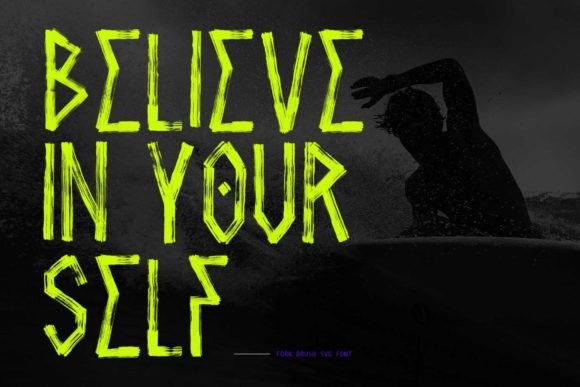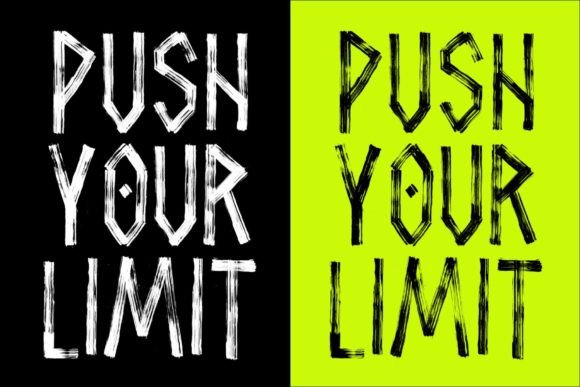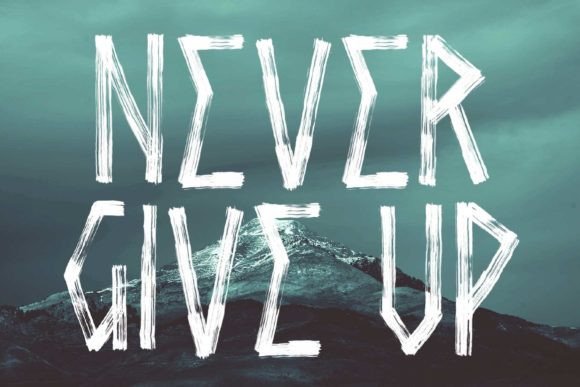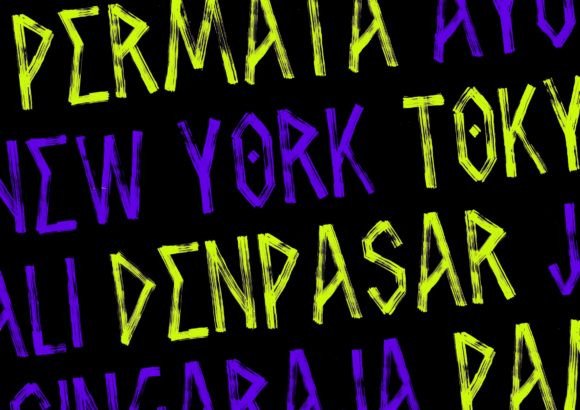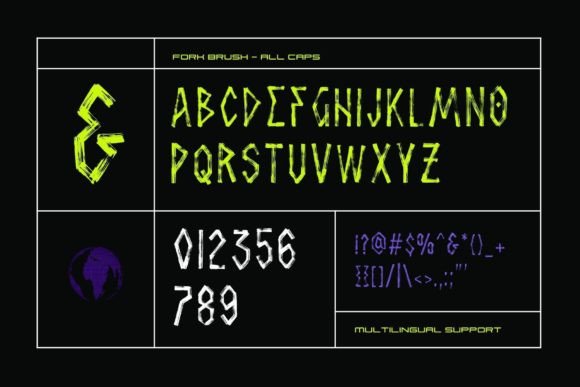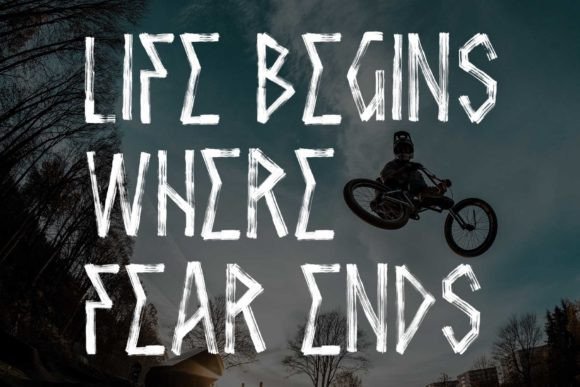
The Perfect Stroke: Unlocking the Power of Fork Brush Font
Have you ever stared at a blank canvas, feeling the weight of a creative deadline looming over you? The cursor blinks, taunting you with its silence. Suddenly, a spark ignites, and you envision the perfect typography – bold, modern, and eye-catching. That’s where Fork Brush Font comes in – a game-changing display font designed to elevate your designs and leave a lasting impression.
This versatile font is perfect for titles, logos, and typography, adding a touch of sophistication to your projects. Whether you’re working on a magazine, brochure, or packaging design, Fork Brush Font is sure to make your creations stand out. As a designer, you’ll appreciate the value it brings to your work, making it a valuable addition to your toolkit.
Fork Brush Font Key Features
- Size: The font family includes multiple weights, ranging from Light to Extra Bold, allowing for a wide range of typographic expressions.
- Unique Characteristics: Fork Brush Font features a unique blend of hand-drawn and digital elements, resulting in a distinctive, organic feel.
- Language Support: Fork Brush Font includes comprehensive language support, covering Latin, Cyrillic, and Greek scripts, among others.
- Stylistic Sets: The font includes a range of stylistic sets, allowing users to customize the font’s appearance and create unique typographic styles.
Fork Brush Font Review
Overall, I’d say the Fork Brush Font is an interesting and unique addition to any digital design project. ✨ Here are some things that really stand out to me:
- Quirky, hand-drawn feel that adds a touch of personality to any design
- Excellent for use in branding, logos, and other creative applications where a bit of whimsy is needed
- Includes a wide range of weights and styles to choose from, making it easy to customize to your needs
- Has a fun, playful vibe that’s perfect for projects like children’s books, advertisements, and more
Of course, like any font, Fork Brush Font isn’t perfect. ⚠️ Here are some potential drawbacks to keep in mind:
- May not be the best choice for formal or professional projects where a more traditional font is called for
- Can be a bit overwhelming or busy if used in large blocks of text
- Not all characters are perfectly formed, which can make it difficult to read in certain situations
Overall, I’d say the Fork Brush Font is a great choice for designers looking to add a bit of personality and whimsy to their projects. With a little care and consideration, it can be a real showstopper.
Use the Fork Brush Font for creative and artistic purposes, such as:
– Creating custom logos or branding elements.
– Designing unique title or heading elements.
– Adding a personal touch to your designs.
The Fork Brush Font is ideal for:
– Digital art and illustrations.
– Graphic design and branding.
– Creative writing and poetry.